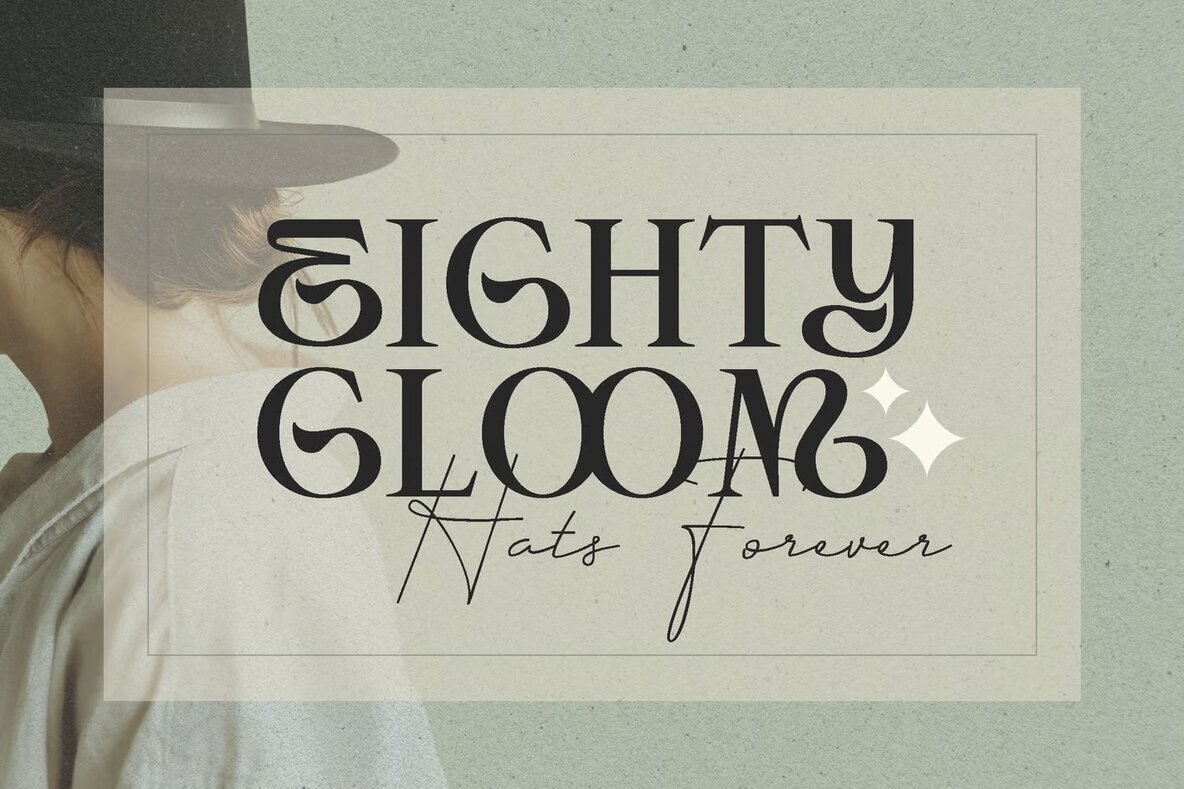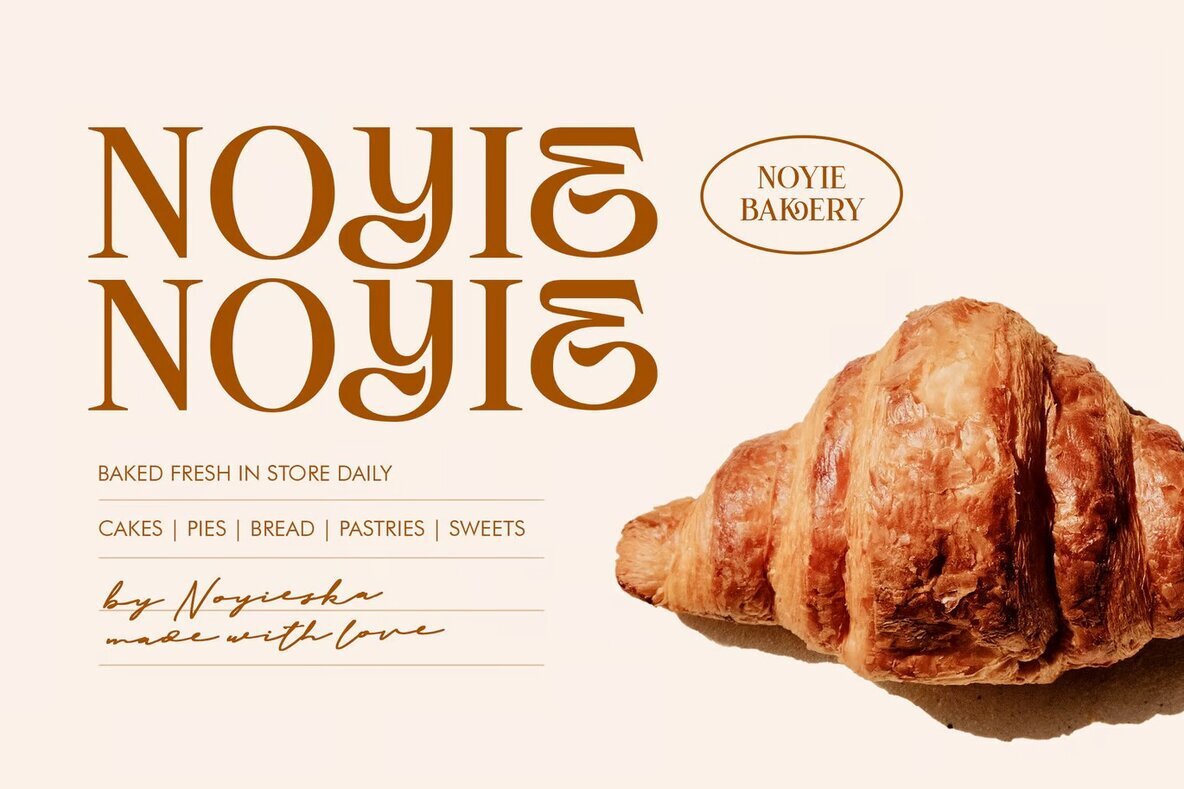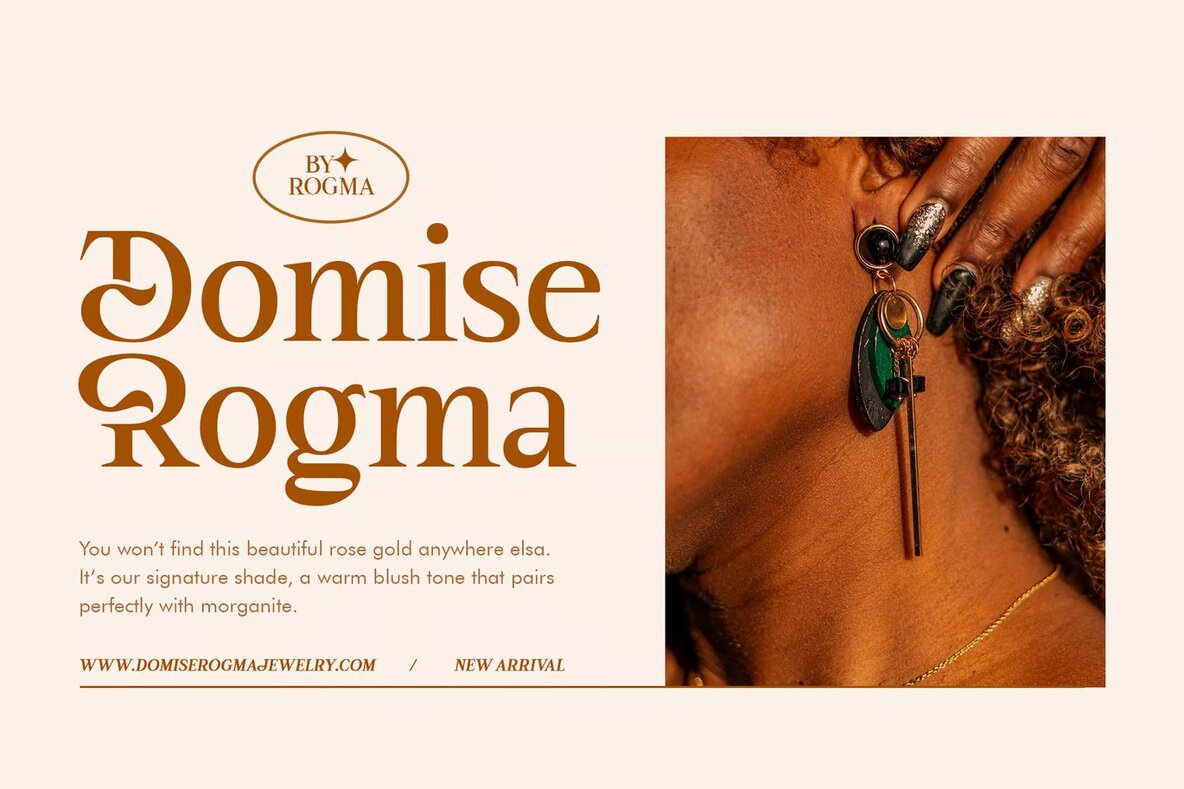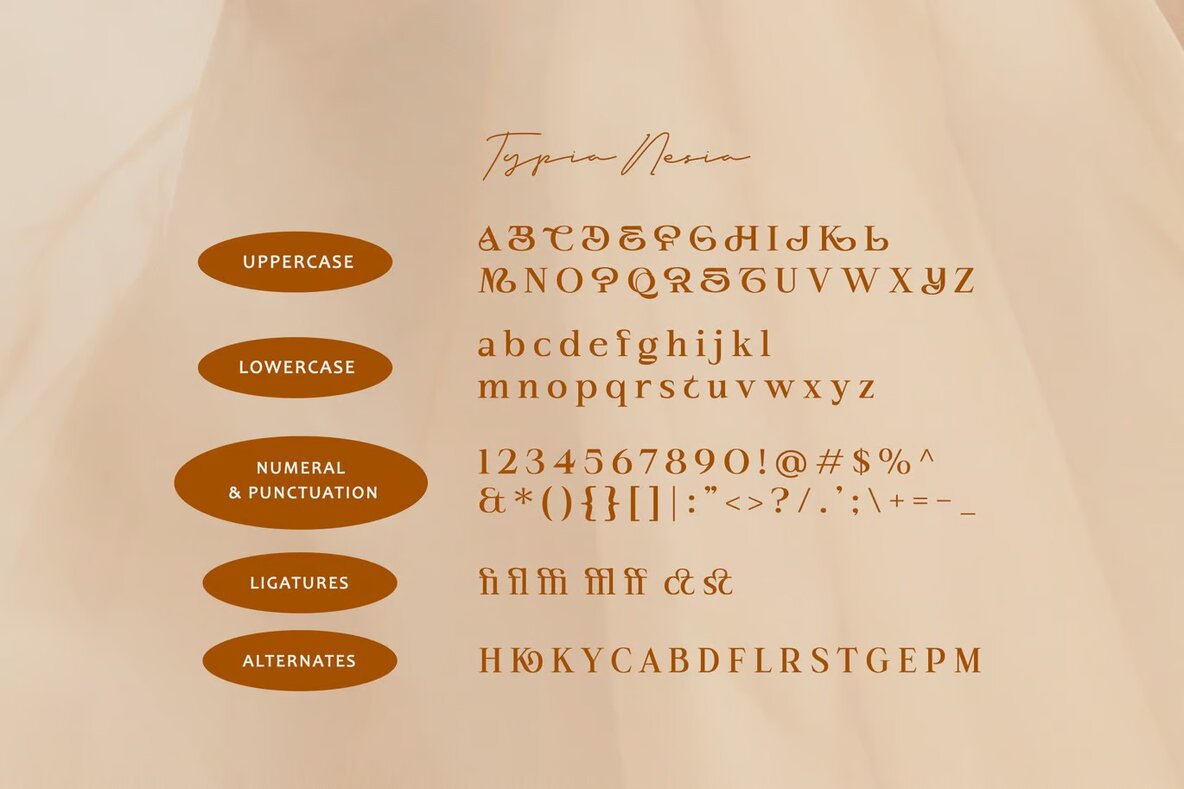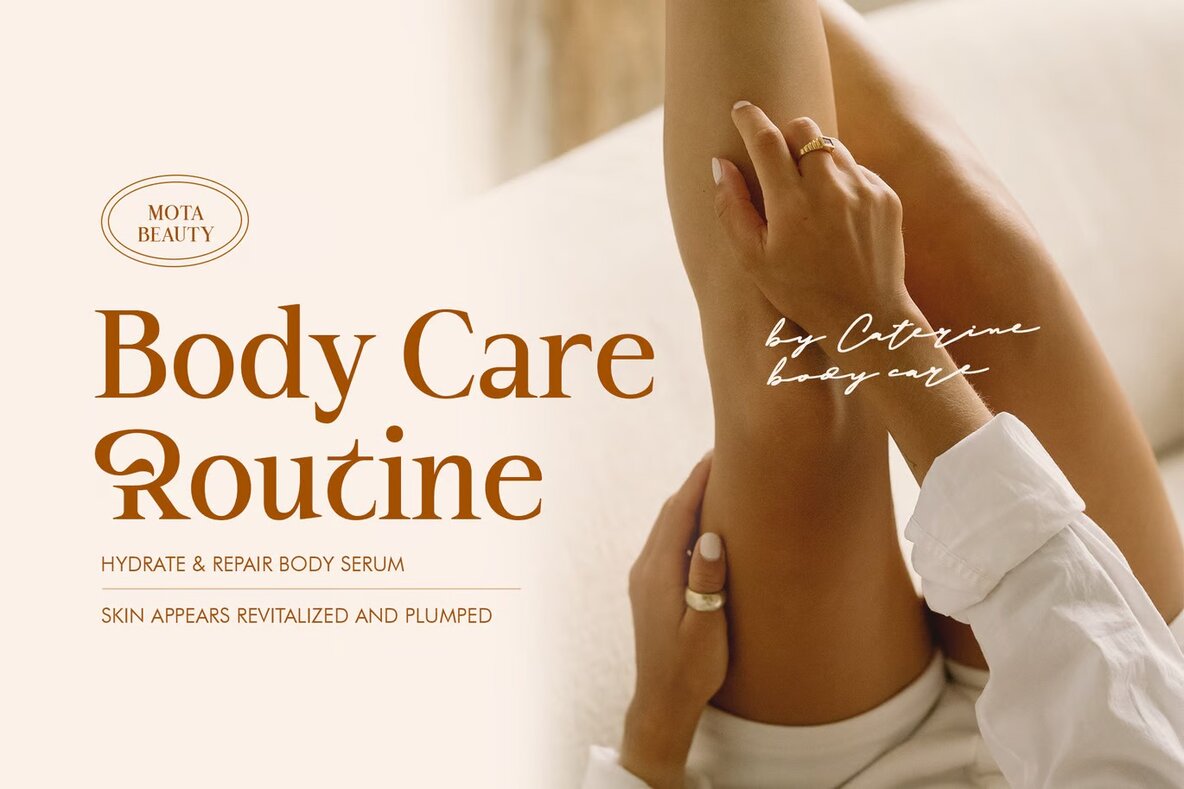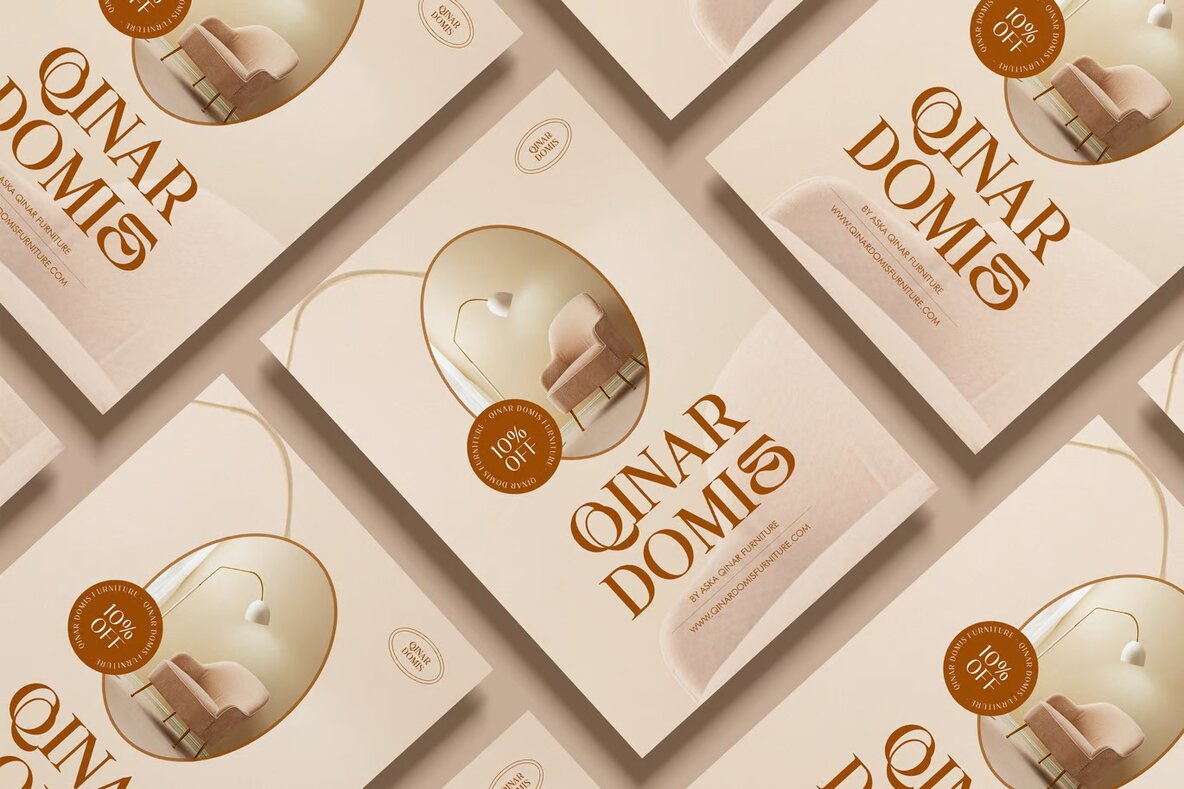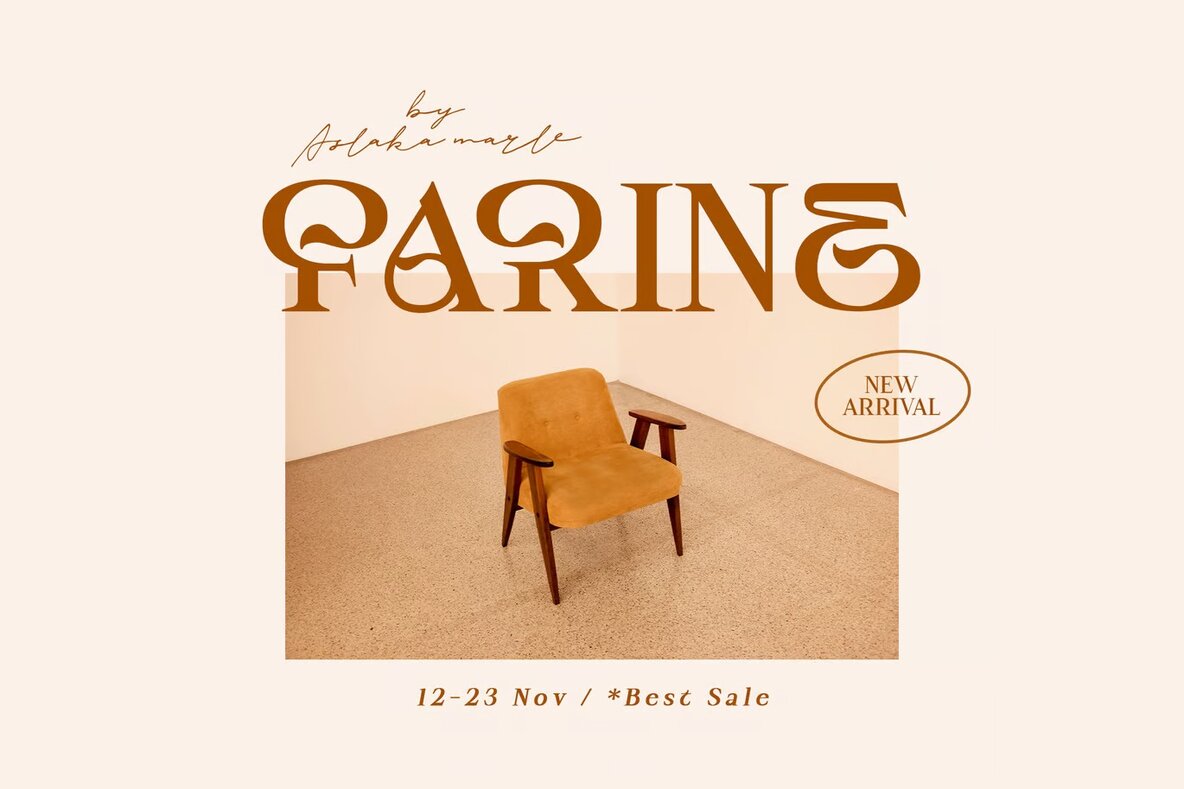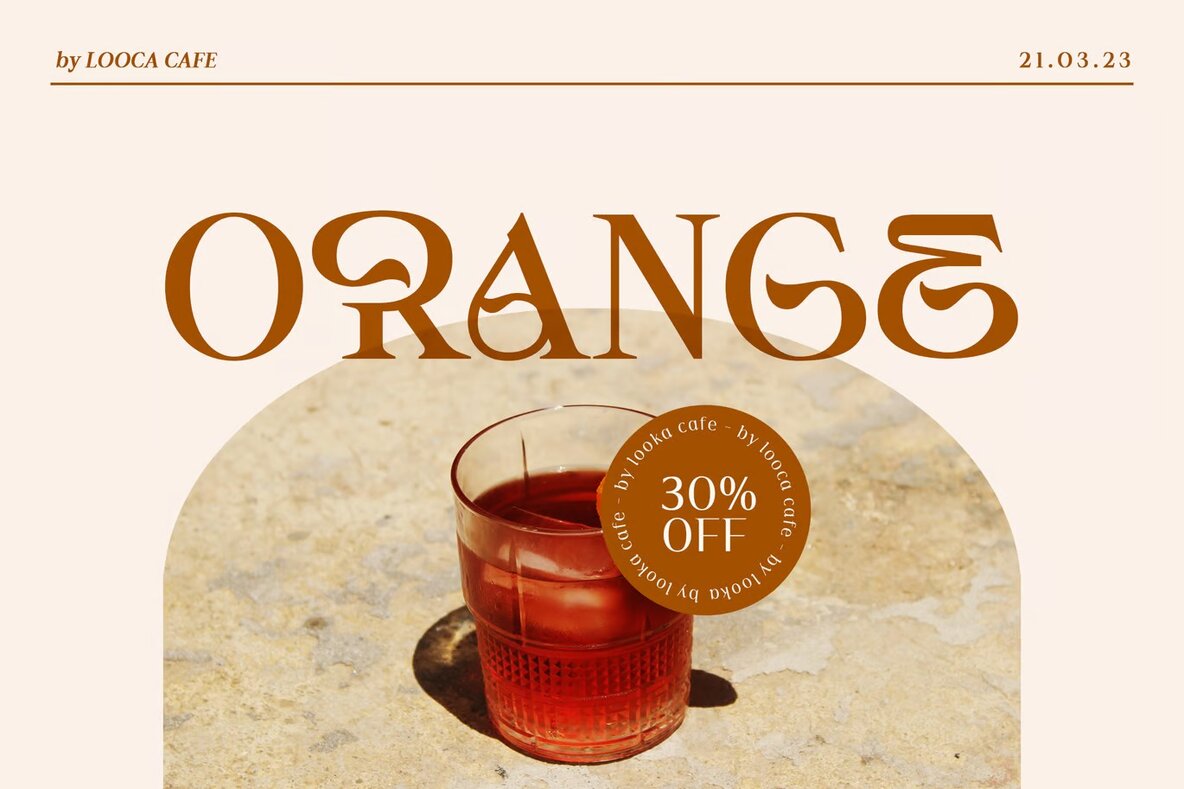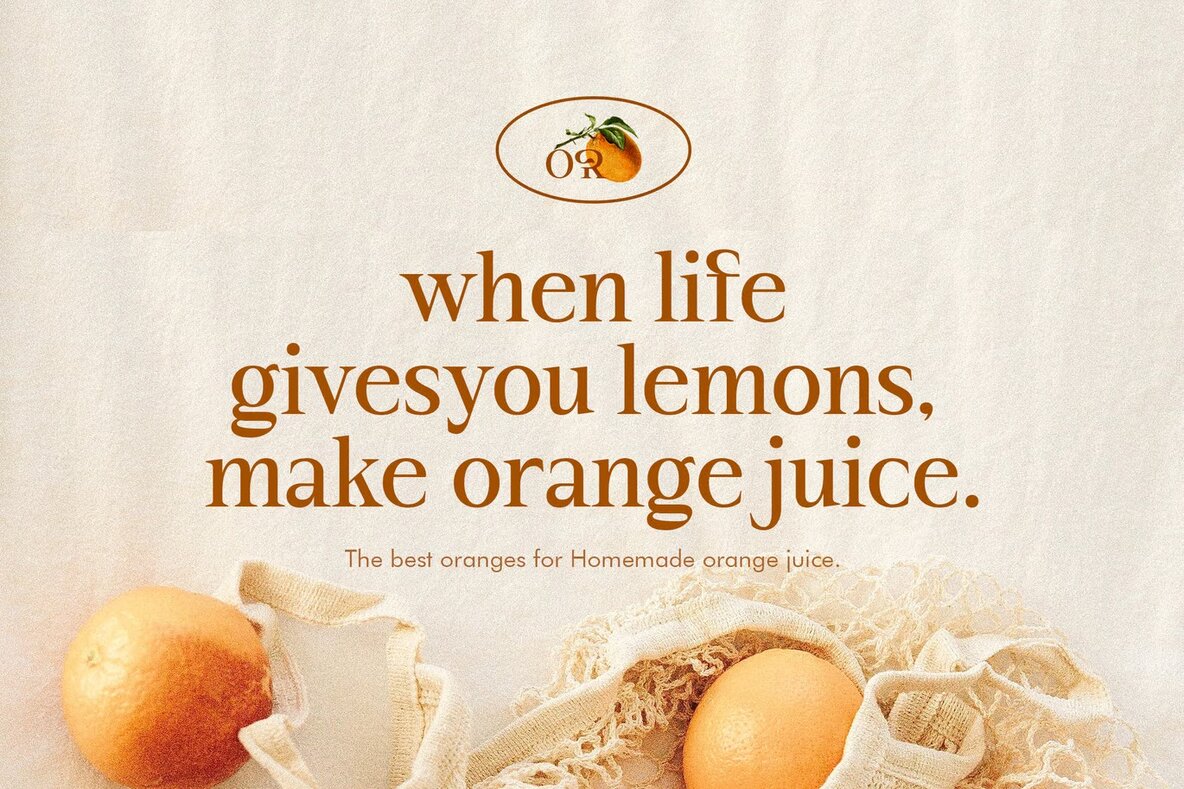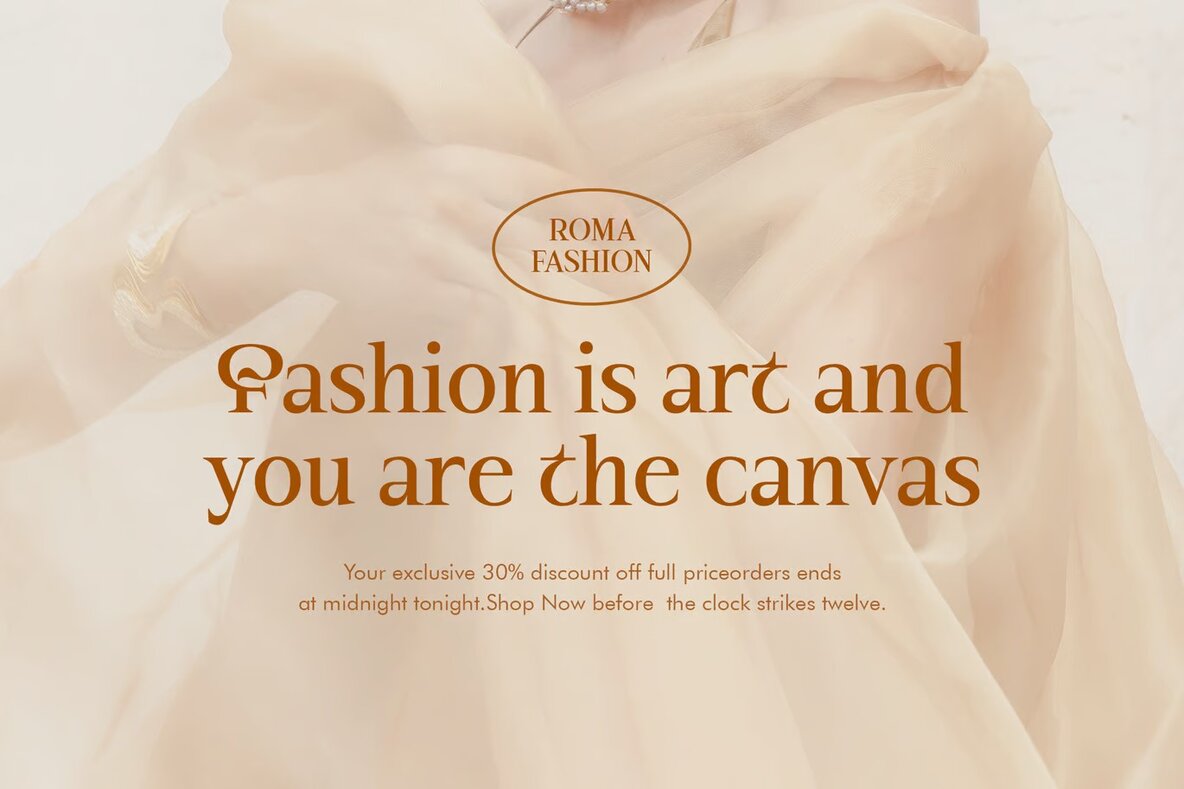
Semipark Font
Semipark Regular
Semipark is a modern serif font designed for impactful display and headline usage. Its unique and creative letterforms make it ideal for logos and branding materials, allowing your brand to truly make a statement. The contemporary and distinctive design ensures that your projects are perceived as innovative and forward-thinking.
Perfect for forward-thinking brands, Semipark's explorative and modern aesthetic sets it apart from traditional serif fonts. Whether you're working on branding or creating eye-catching headlines, Semipark's bold and unique style will capture attention and leave a lasting impression. Enhance your design projects with the standout characteristics of Semipark.